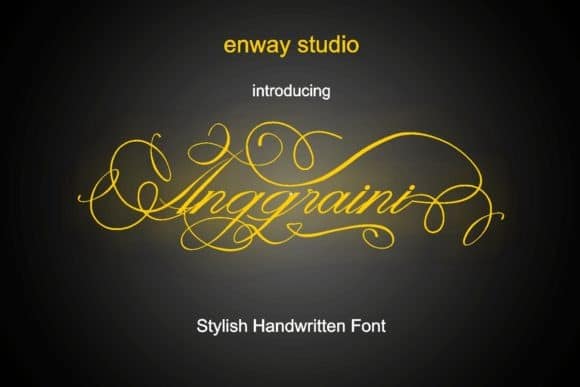
Anggraini Font
Anggraini Calligraphy Font is an elegant and flowing handwritten font manufactured by enway. It features a varying baseline, smooth lines, gorgeous glyphs and stunning alternates. It maintains its classy calligraphic influences while feeling contemporary and fresh. This will turn any design idea into a standout!